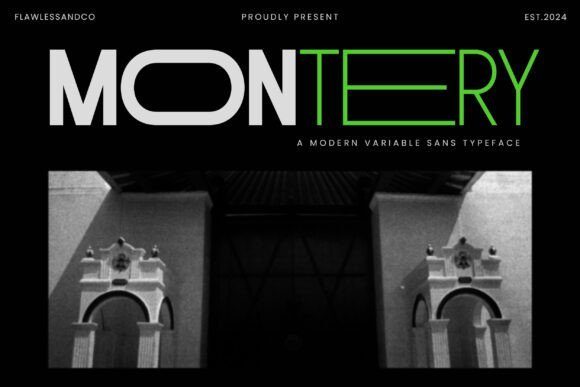
Introduction to Montery Font
Introducing β€œMontery,” a sleek and versatile sans serif font family designed to meet the needs of modern design.
With its clean lines, dynamic shapes, and variable weights, Montery is perfect for creating professional and contemporary designs that require flexibility and style .
Key Features of Montery Font
Why Choose Montery Font?